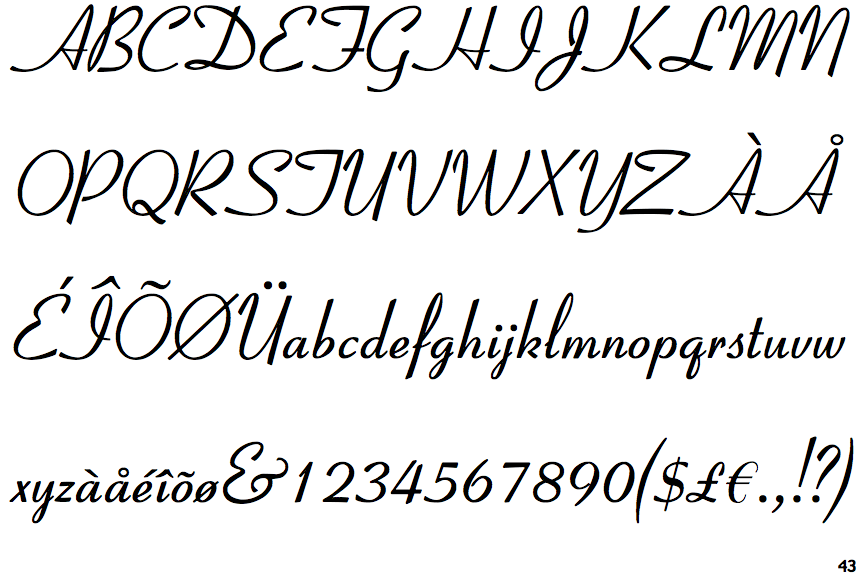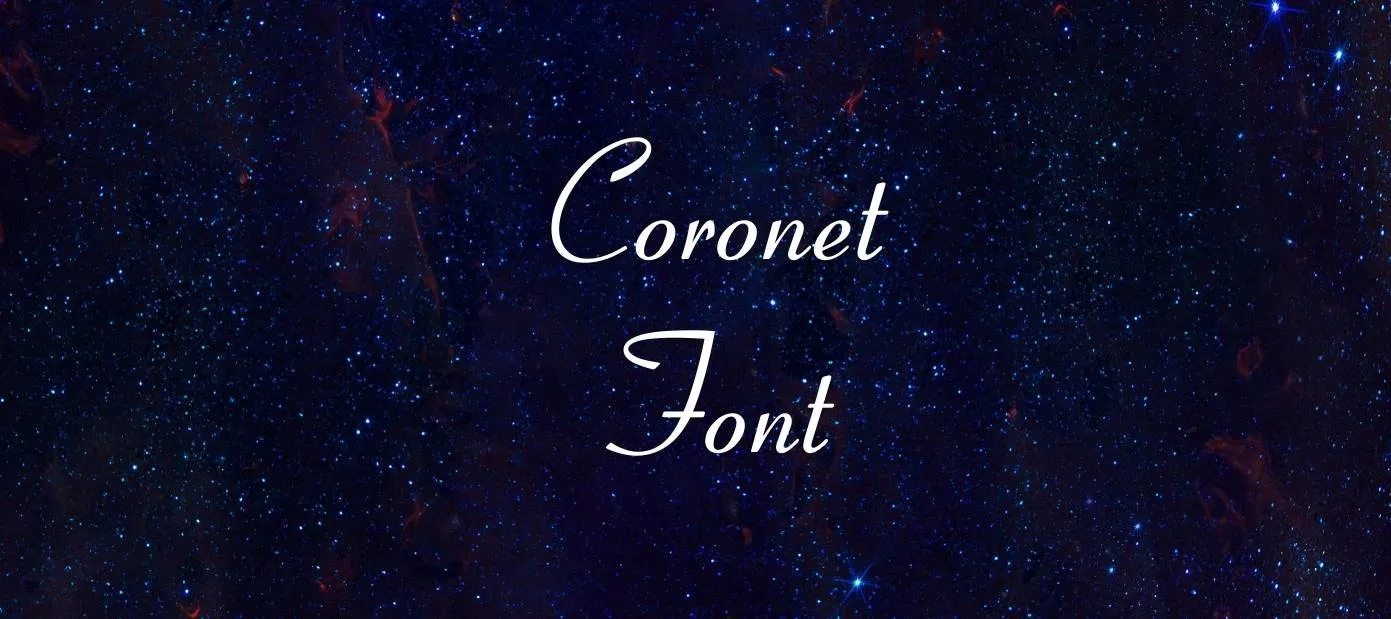
Coronet Bold Font Free Download . A great choice for highlighting your design elements. Installable on pc, mac, linux, ios, and android platforms. This script typeface is for various designs such as invitations, branding, logos, merchandise, hand lettering, social media posts, advertisements, and more. fontsplace is the best place to download coronet bold for free. It will look stunning in many ways to your latest design. discover the free coronet bold font at free font download ! coronet bold font free download. download the coronet® bold font for mac or windows in opentype, truetype or postscript format. Download free and premium fonts. download coronet font from free cdn or use it on your website as webfont.